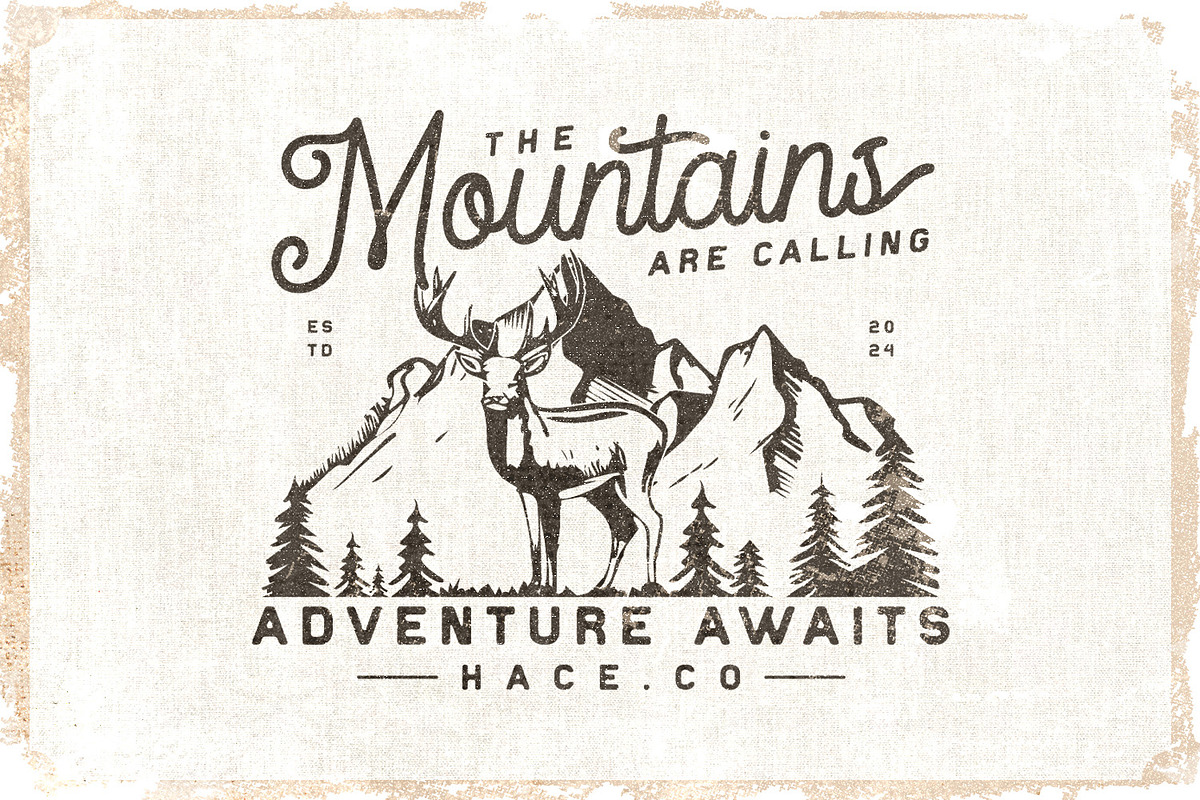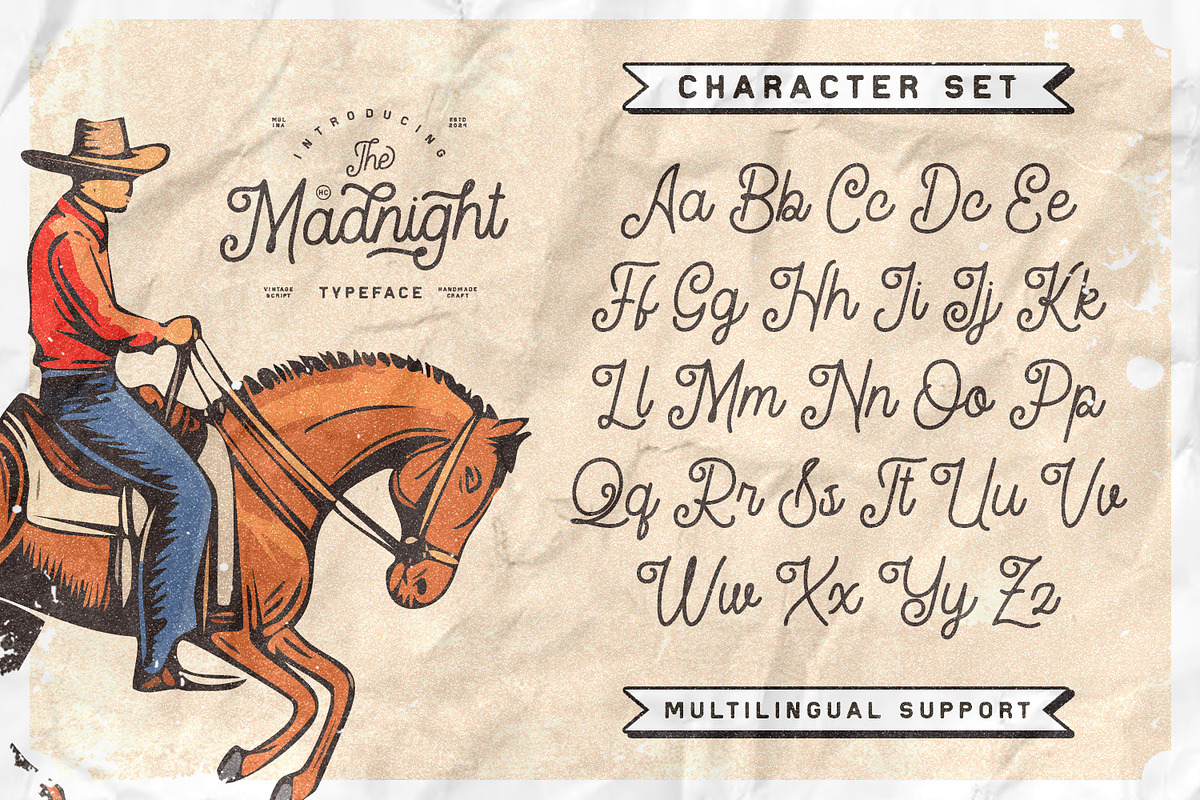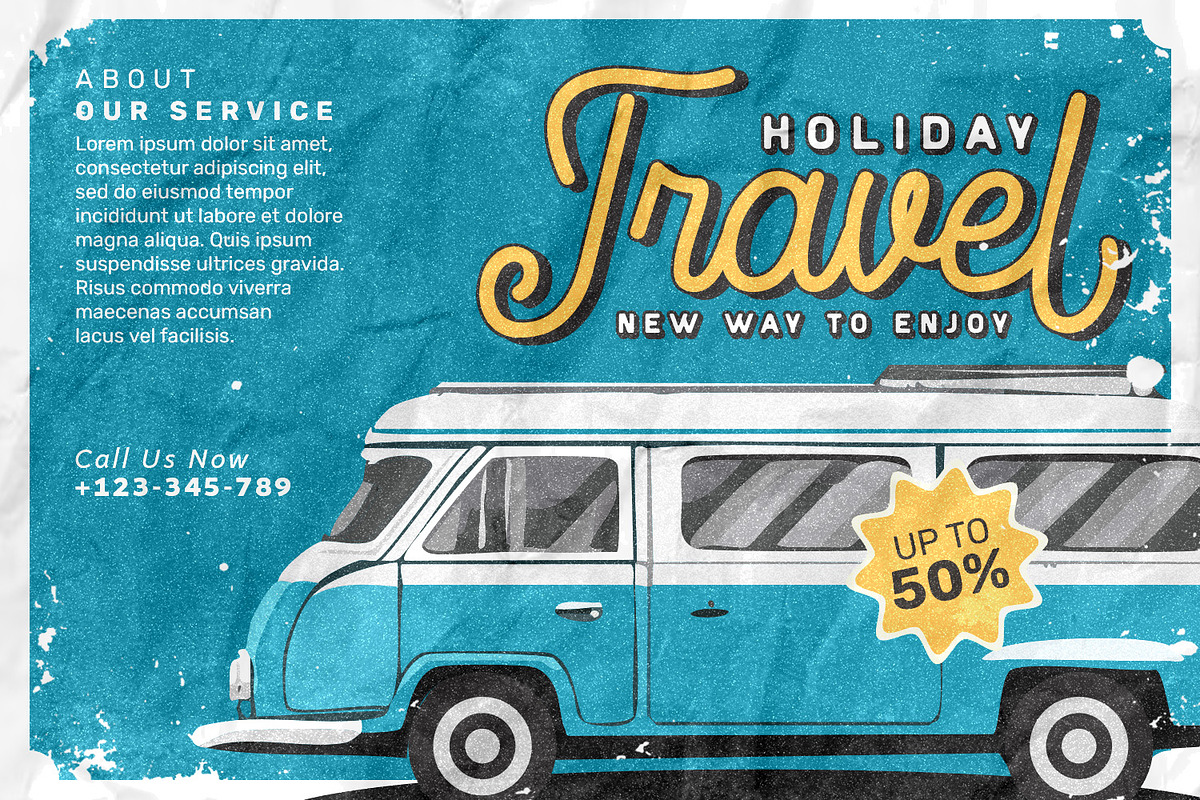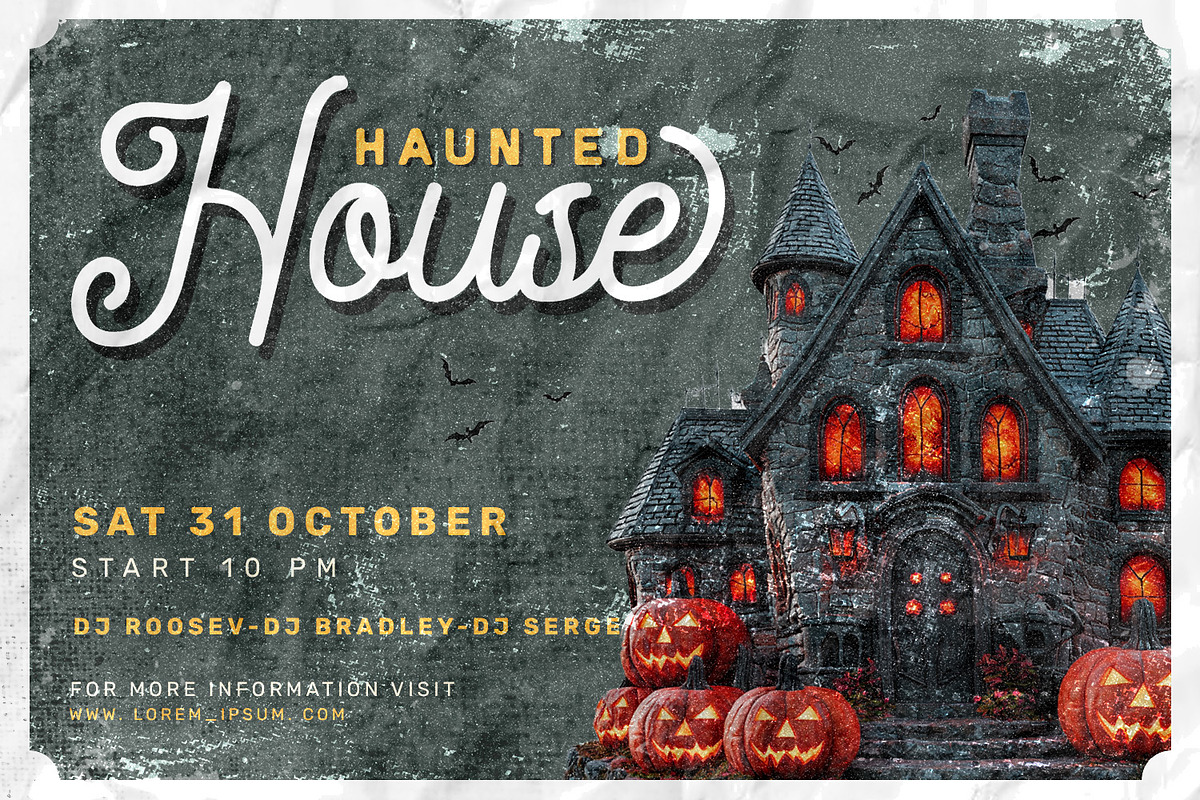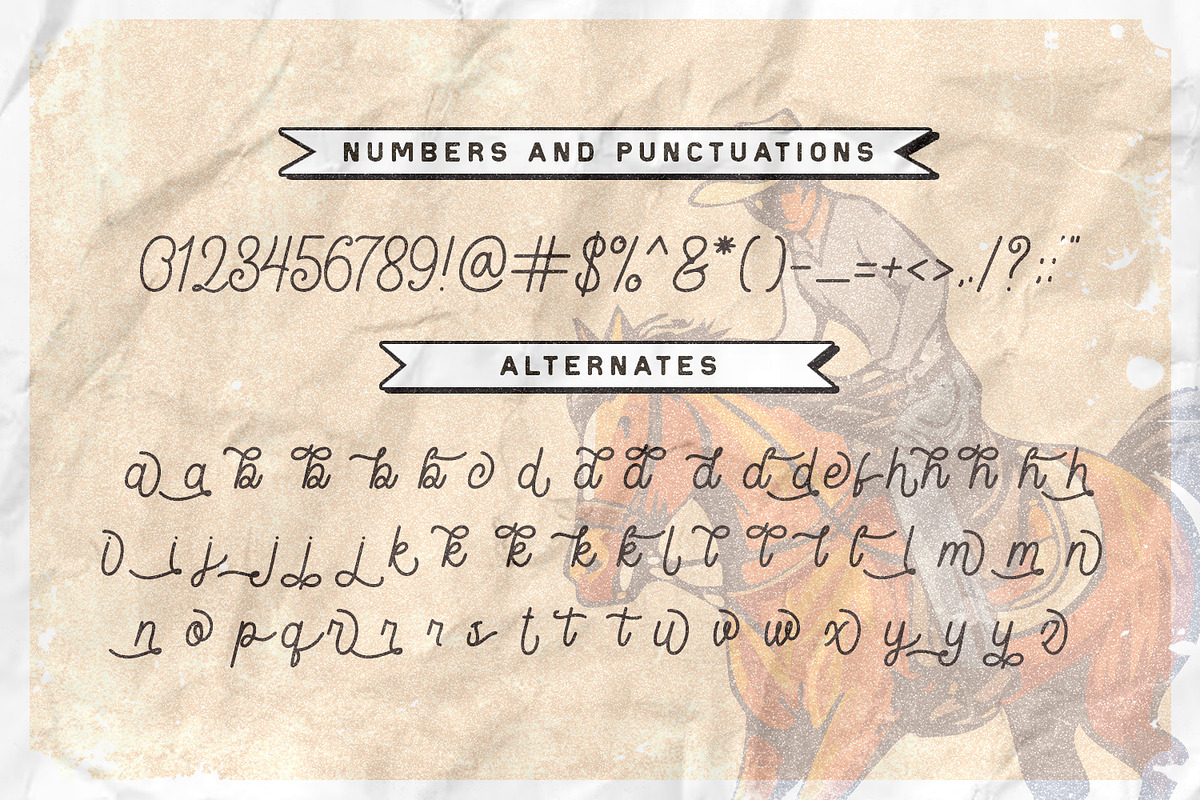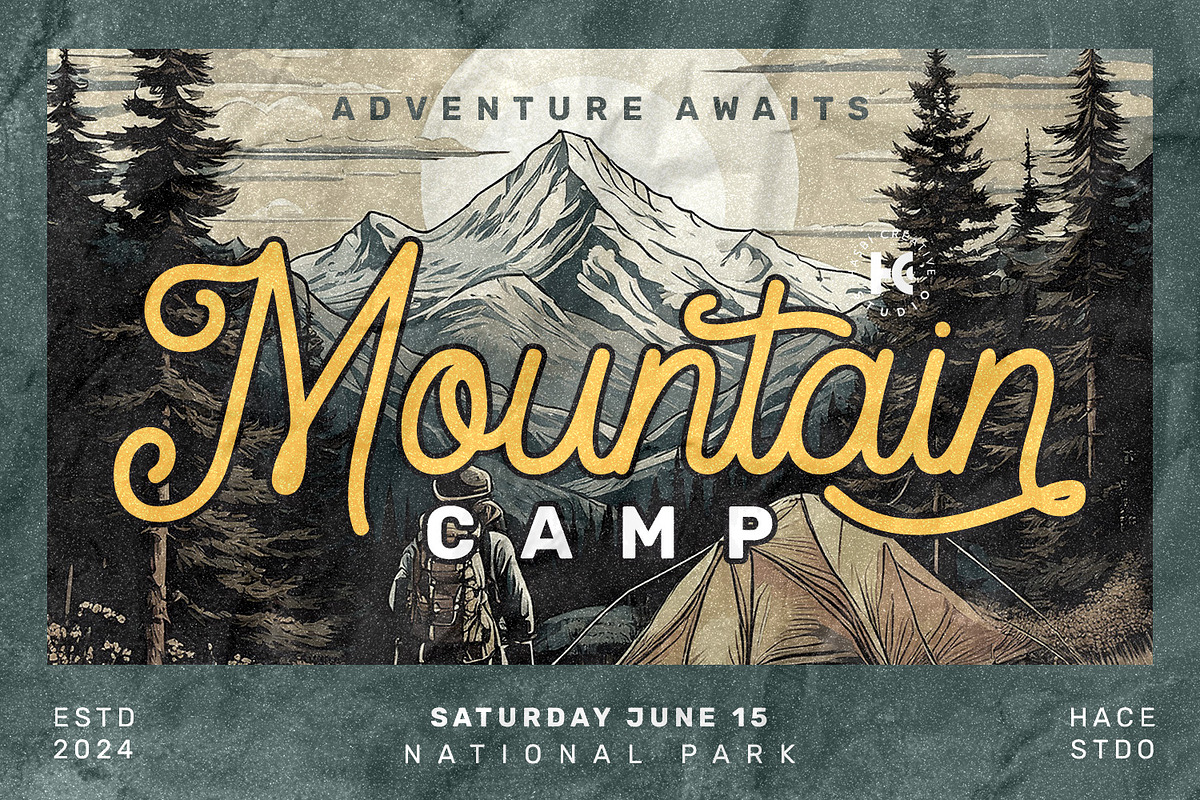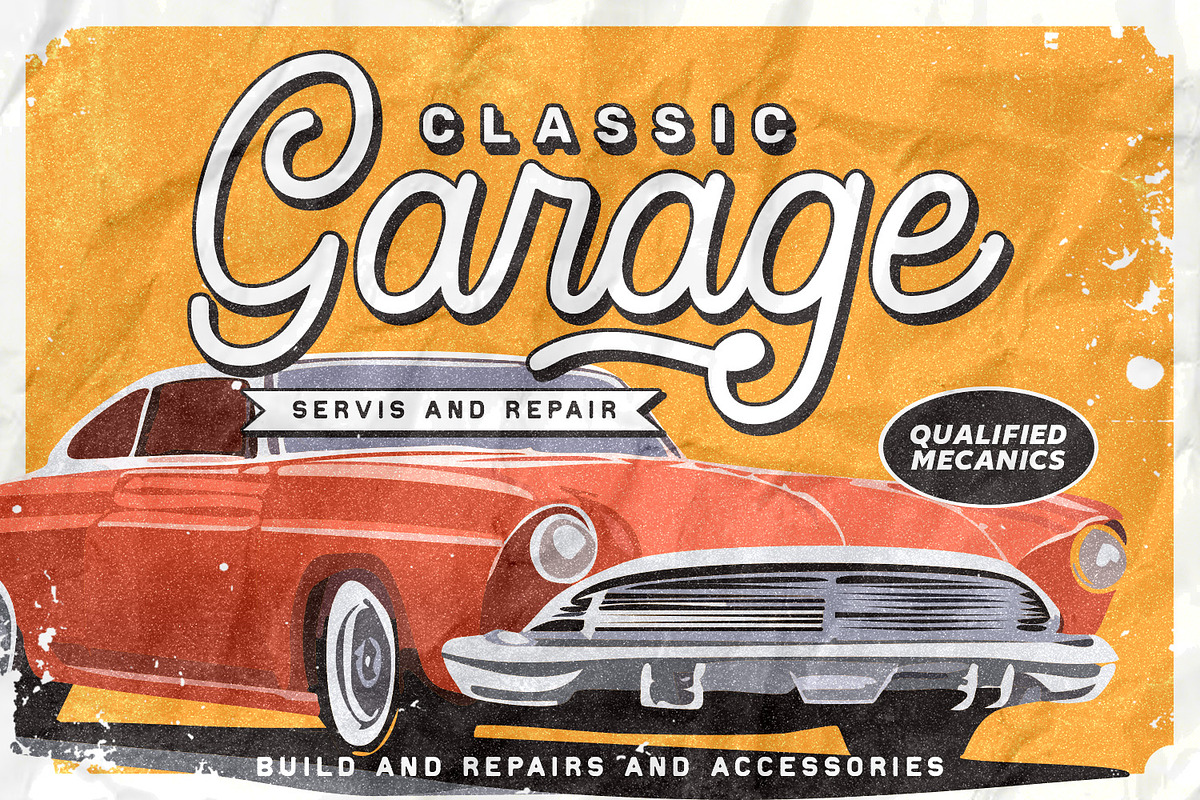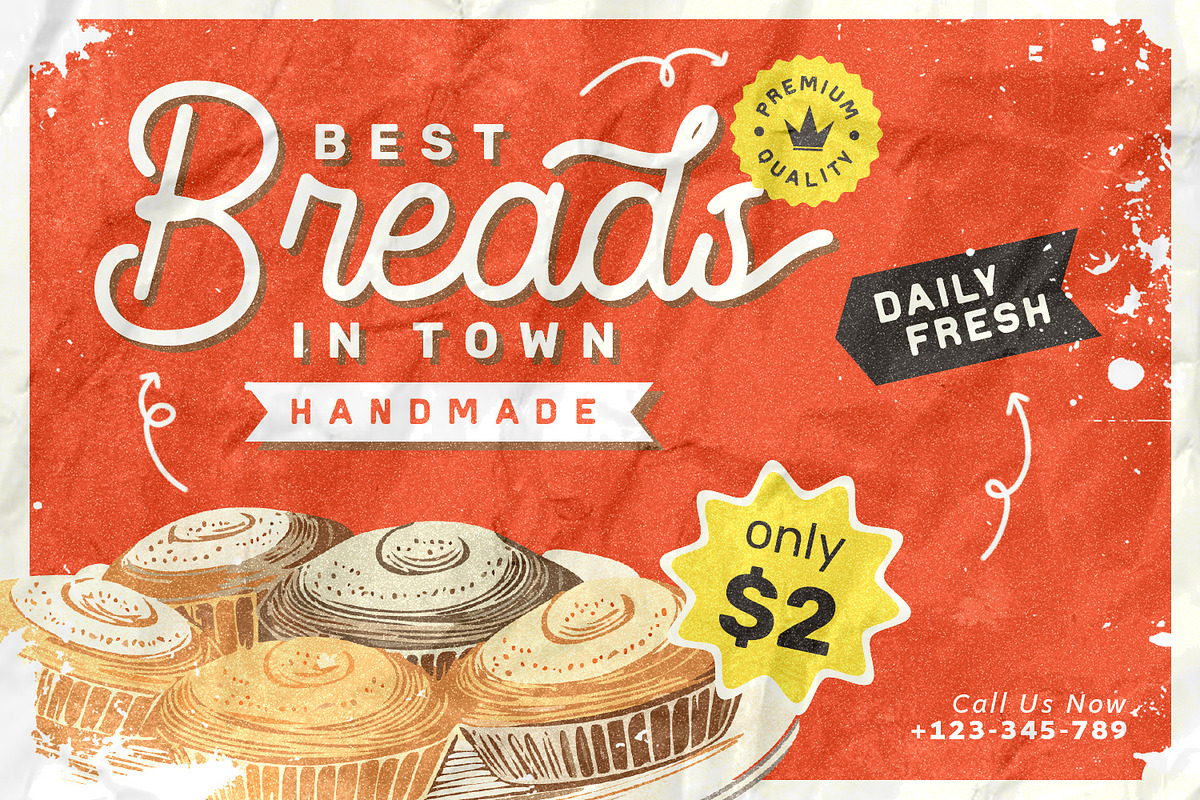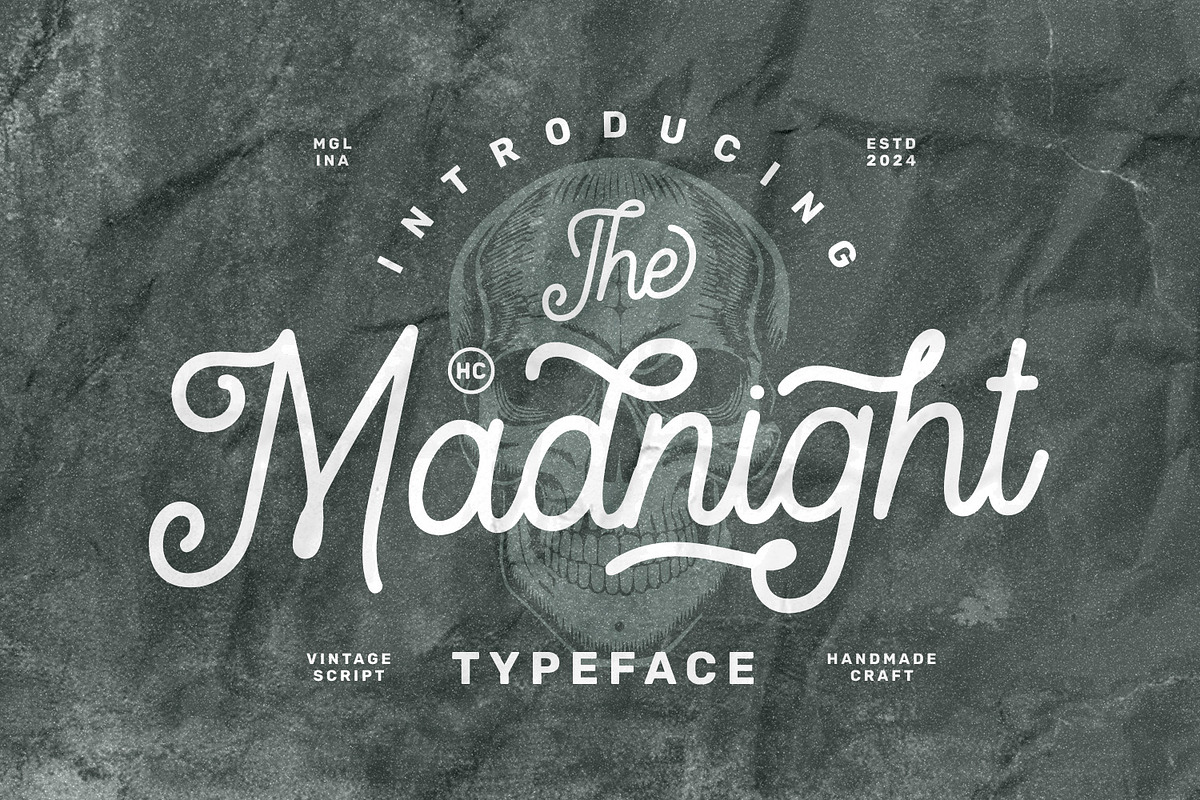
HC - Madnight Vintage Script
HC - Madnight Vintage Script Font offers a versatile collection of two complementary font styles. The elegant script monoline font provides a vintage handwritten look, while the bold sans serif font offers a modern and striking aesthetic. Perfect for creating unique designs for logos, posters, invitations, and more.
- Versatility
- Vintage Aesthetic